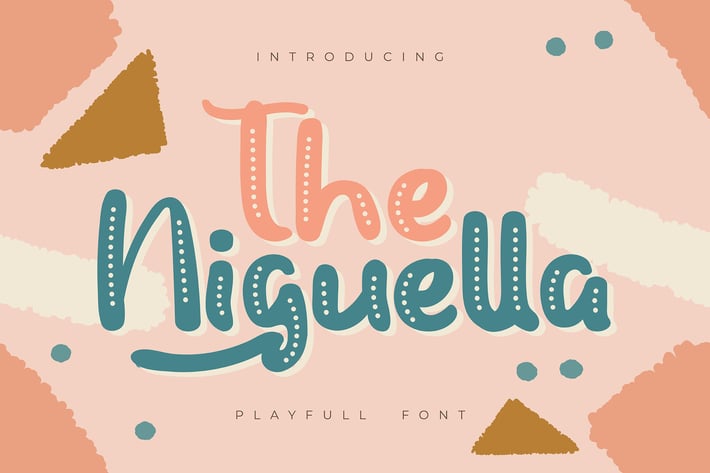
The Niguella | Playfull Font
The Niguella | Playfull Font with a calligraphy style, So beautiful on invitation like greeting cards, branding materials, business cards, quotes, posters, and more!